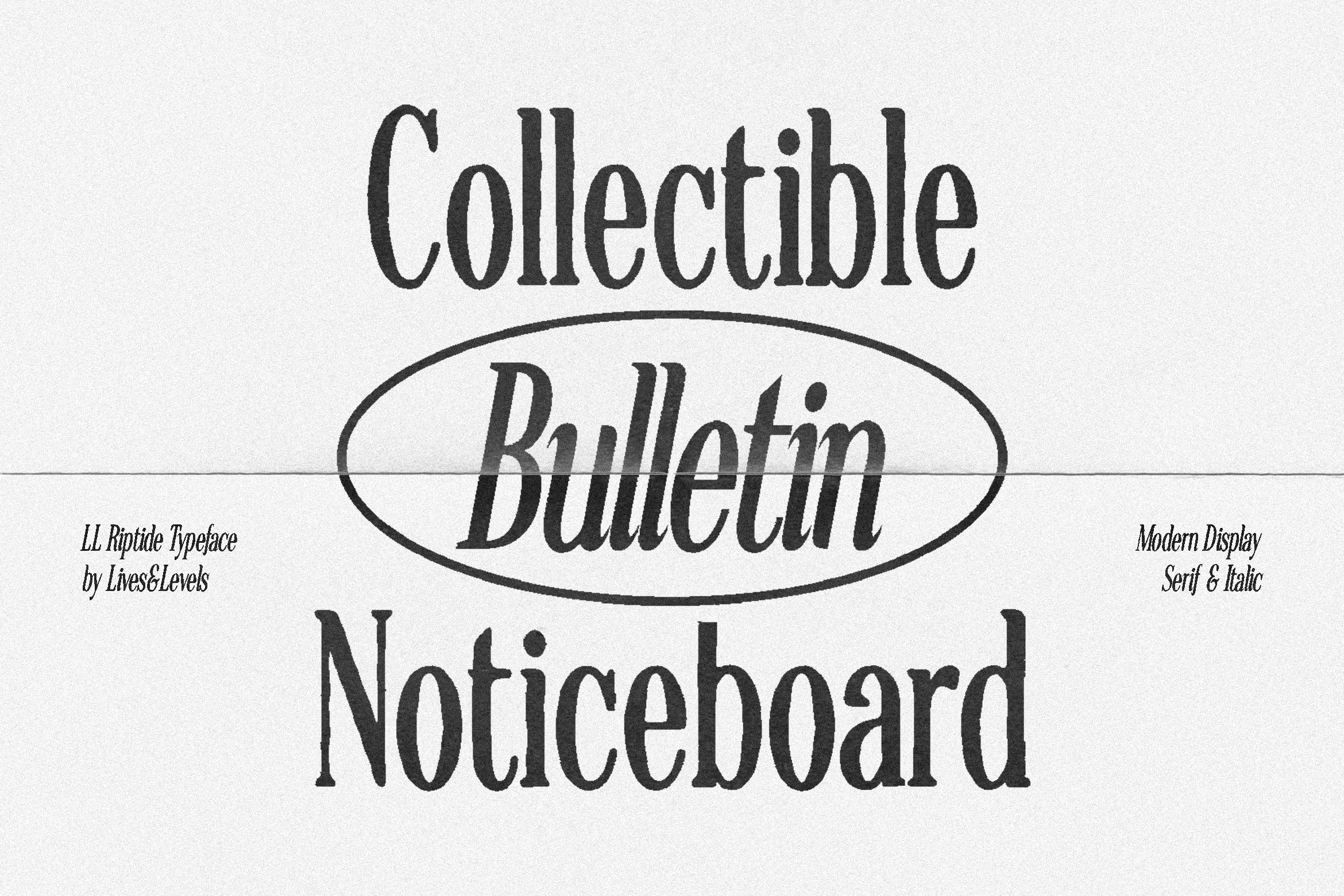
LL Riptide Retro Serif Font
Riptide is a contemporary display serif that balances timeless elegance with modern confidence. Designed with high contrast, sculpted curves, and refined proportions, it delivers a distinctive editorial voice while remaining effortlessly readable. Every character is crafted to create striking headlines, sophisticated branding, and memorable visual identities.
Inspired by the rhythm of classic typography and reinterpreted through a modern lens, Riptide feels both luxurious and expressive. Its graceful details make it equally suited for fashion campaigns, magazine layouts, premium packaging, beauty branding, album covers, creative portfolios, and cultural publications.
To expand its versatility, Riptide also includes a beautifully designed Italic style. Rather than simply slanting the upright letters, the italic introduces a more fluid, expressive character—perfect for emphasizing key messages, creating elegant typography pairings, or adding movement and contrast within editorial compositions.
Uppercase & lowercase letters
4 styles: Regular, Rough, Bold & Black
Clean kerning & spacing